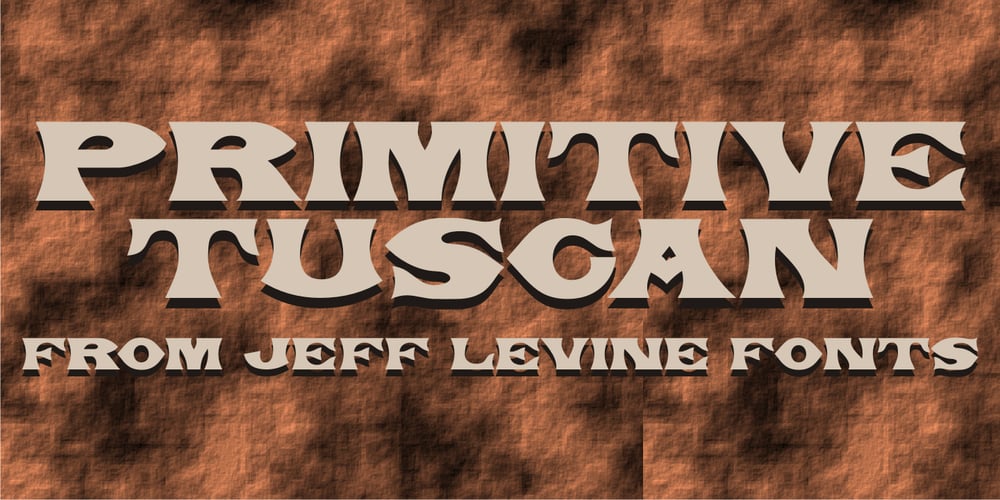
Primitive Tuscan JNL
Primitive Tuscan JNL font
Primitive Tuscan JNL Font Family was designed by Jeff Levine and published by Jeff Levine. Primitive Tuscan JNL contains 1 styles and family package options. Re-drawn from examples of vintage wood type, Primitive Tuscan JNL captures the essence of early letterpress printing of the 1800s; the styles of which were most closely associated with the Old West.